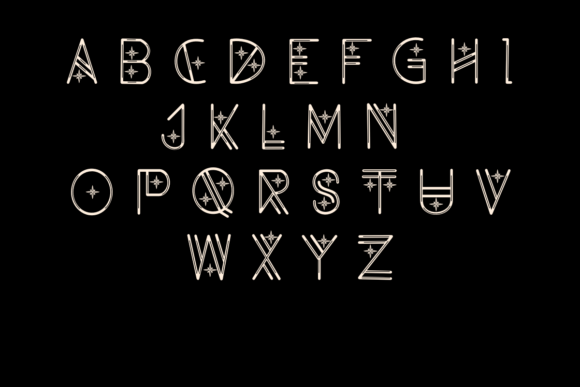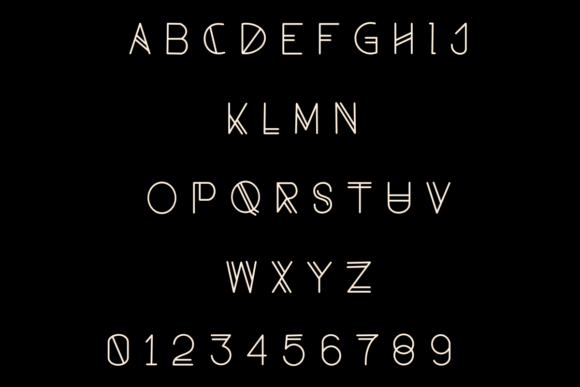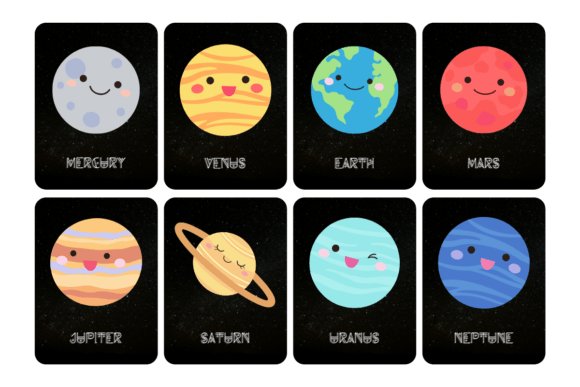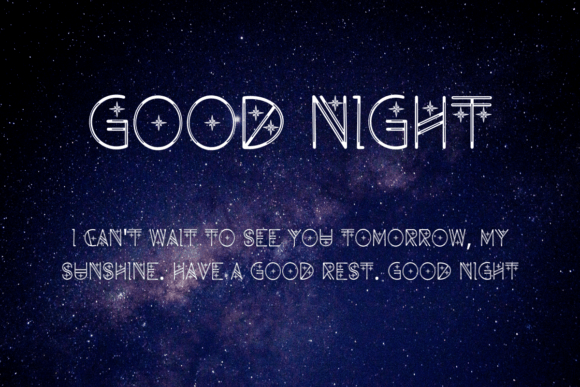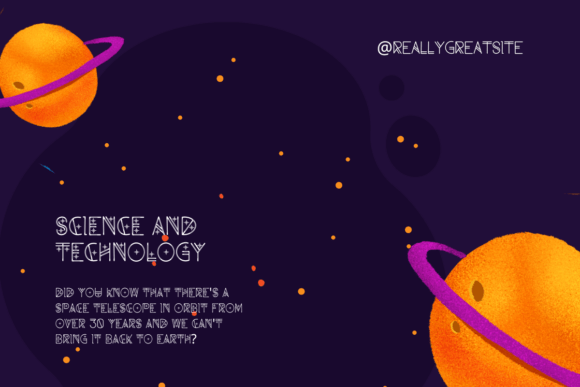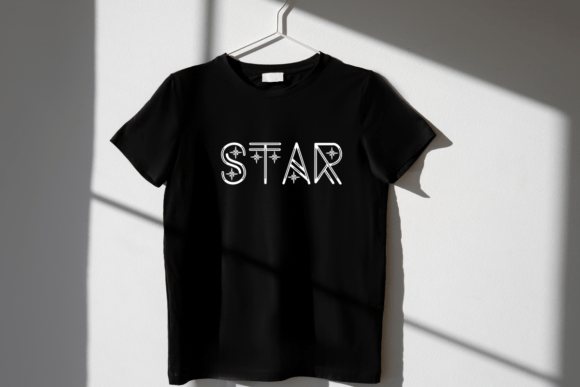
Introduction to Guiding Light Font
Guiding Light is a celestial-inspired decorative font that shines with elegance and cosmic charm.
With starburst accents and linear detailing, each character radiates a unique sense of wonderโperfect for dreamy branding, event invitations, holiday cards, or any design that calls for a touch of magic and sophistication .
Key Features of Guiding Light Font